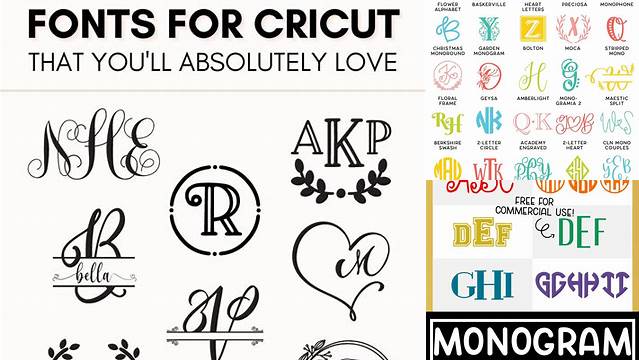
Cricut Monogram Fonts: Names & Styles For Stunning Crafts
Hey crafters! Ever wondered how to create those gorgeous monograms you see everywhere? Well, you've come to the right place! This guide is your ultimate resource for diving into the world of Cricut monogram font names. We're going to explore a ton of different font options, styles, and tips to help you create personalized masterpieces with your Cricut machine. Whether you're a beginner or a seasoned pro, there's something here for everyone. So, grab your favorite beverage, settle in, and let's get crafting!
1. Understanding Monograms and Their Significance
Okay, first things first, what exactly is a monogram? A monogram, guys, is simply a design made by overlapping or combining one or more letters or other graphemes. They're traditionally used to represent a person's initials, but they can also be used for businesses, events, or even just as decorative elements. Think about all the places you see monograms: wedding invitations, embroidered towels, personalized gifts, and so much more! Cricut monogram font names are key to creating these stunning personalized items, allowing you to choose the perfect style to match your project's aesthetic. The significance of monograms lies in their ability to add a personal touch and a sense of elegance to almost anything. They can transform a plain item into something special and meaningful, making them a favorite for crafters and gift-givers alike.
Monograms have a rich history, dating back centuries to ancient Greece, where they were used on coins and seals. Over time, their use evolved, becoming especially popular among royalty and the upper classes as a symbol of status and identity. Today, monograms are accessible to everyone, thanks in part to the ease of creating them with tools like Cricut machines. With the right Cricut monogram font names, you can tap into this tradition and create your own unique and timeless designs. Choosing the right font is crucial, as it sets the tone and style of the monogram. A classic serif font, for instance, might be perfect for a wedding invitation, while a more modern sans-serif font could be ideal for a personalized water bottle. Ultimately, understanding the significance of monograms and their historical context can help you make informed choices about your own designs, ensuring they are both beautiful and meaningful.
Monograms are more than just fancy letters; they're a reflection of personality and style. That's why exploring different Cricut monogram font names is so important. You want to find a font that truly represents the individual or the occasion. Consider the overall aesthetic you're aiming for: Is it classic and traditional, modern and minimalist, or whimsical and fun? The font you choose will play a huge role in conveying that message. Think about the recipient of a monogrammed gift – what are their tastes and preferences? A bold, contemporary font might be perfect for someone with a modern style, while a delicate, script font might be more suited to someone who appreciates classic elegance. By considering these factors, you can create monograms that are not only beautiful but also deeply personal and meaningful.
2. Exploring Different Styles of Monogram Fonts
Okay, let's talk styles! There's a whole world of Cricut monogram font names out there, and each one has its own unique personality. You've got your classic serif fonts, which are elegant and timeless. Then there are the sans-serif fonts, which are clean and modern. And of course, we can't forget the script fonts, which are flowy and romantic. Different monogram styles evoke different feelings and are appropriate for different occasions. For instance, a bold block monogram in a sans-serif font might be perfect for a gym bag, while a delicate script monogram would look stunning on a wedding invitation. Understanding the nuances of different font styles is essential for creating effective and visually appealing monograms.
Serif fonts, with their little “feet” or strokes at the ends of the letters, have a long history and are often associated with tradition and formality. Think of fonts like Times New Roman or Garamond – these are classic examples of serif fonts. When it comes to Cricut monogram font names, using a serif font can instantly elevate your project, giving it a touch of timeless elegance. These fonts are particularly well-suited for formal occasions like weddings or anniversaries, as well as for creating monograms for high-quality items like linens or stationery. The serifs themselves can add visual interest and a sense of sophistication, making your monogram stand out. However, it's important to choose a serif font that is clear and easy to read, especially when the letters are overlapping or intertwined.
Sans-serif fonts, on the other hand, are characterized by their clean lines and lack of serifs. They have a more modern and minimalist feel, making them a great choice for contemporary monograms. Think of fonts like Arial or Helvetica – these are popular sans-serif options. When considering Cricut monogram font names, a sans-serif font can be a fantastic choice for projects that require a clean and uncluttered look. They work particularly well for items like water bottles, phone cases, or even signage. Sans-serif fonts are often easier to read at smaller sizes, making them a versatile option for a wide range of projects. They also lend themselves well to bold, block monograms that make a statement.
Script fonts are where the magic happens! These fonts mimic the fluidity of handwriting and come in a variety of styles, from elegant and formal to playful and whimsical. Script fonts can add a touch of romance and personality to your monograms, making them perfect for special occasions like weddings or birthdays. When browsing Cricut monogram font names, you'll find an array of script fonts, each with its own unique flair. Some have delicate, flowing strokes, while others are bolder and more dramatic. Choosing the right script font can be crucial for capturing the desired mood of your project. However, it's important to ensure that the font is legible, especially when the letters are overlapping. Consider the spacing and kerning (the space between individual letters) to ensure that your monogram is both beautiful and easy to read.
3. Top Cricut Monogram Font Names You Should Know
Alright, let's get down to specifics! There are so many Cricut monogram font names to choose from, it can feel overwhelming. But don't worry, we're here to help! We've rounded up some of the top fonts that are perfect for creating stunning monograms. We'll cover a mix of serif, sans-serif, and script fonts to give you a good starting point. Knowing some of these popular font names will make it easier to search for them in Cricut Design Space or other design software. Plus, you'll start to develop a sense of which fonts you like and which ones work best for different projects.
One of the all-time classic Cricut monogram font names is Times New Roman. This serif font is incredibly versatile and works well for a wide range of projects. Its elegant and timeless look makes it a perfect choice for formal monograms, such as those used on wedding invitations or personalized stationery. Times New Roman is also very legible, which is essential for monograms where letters often overlap or intertwine. Its simplicity allows it to be easily paired with other design elements, making it a reliable option for both beginners and experienced crafters. When in doubt, Times New Roman is a solid choice that will always deliver a sophisticated result.